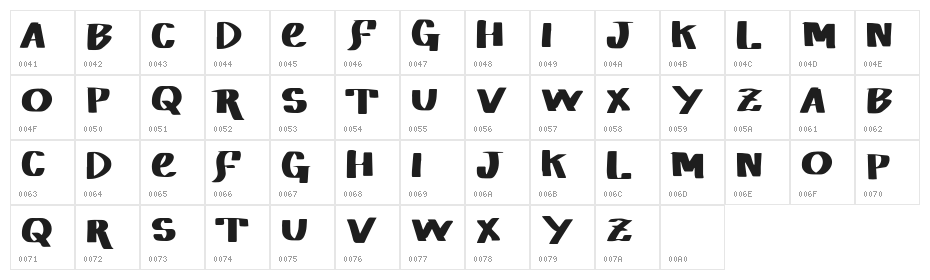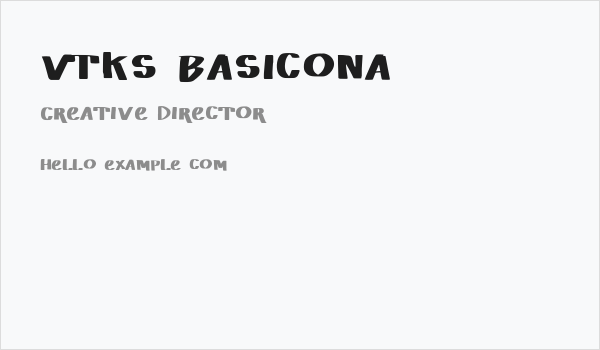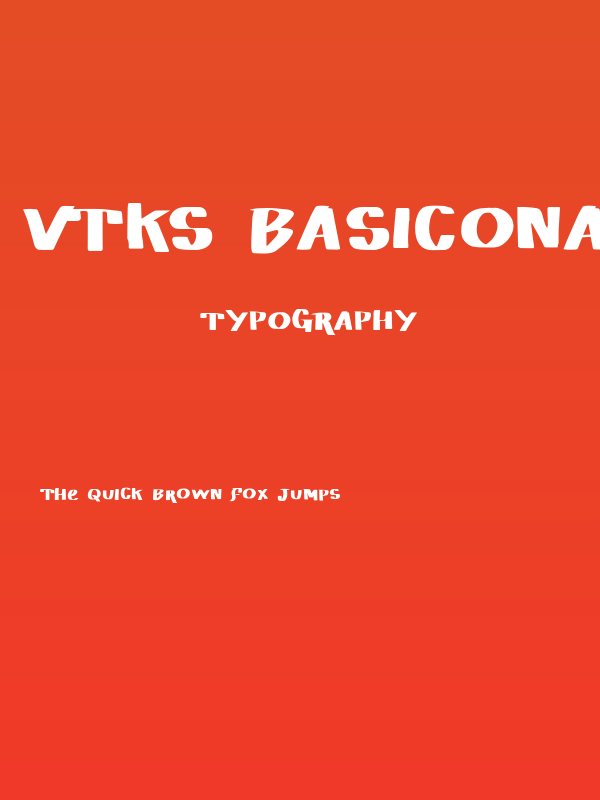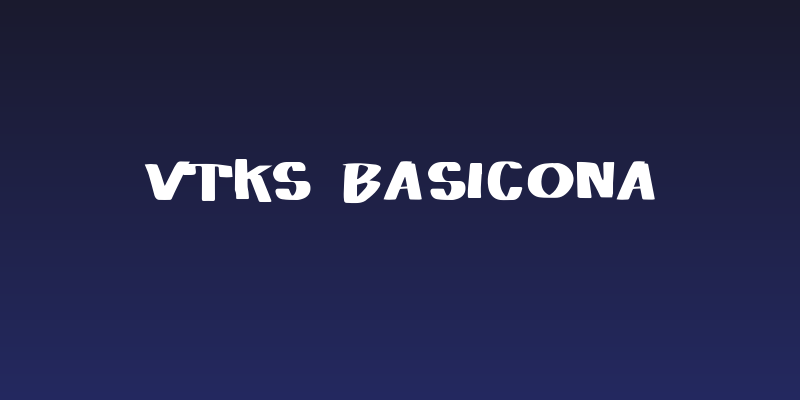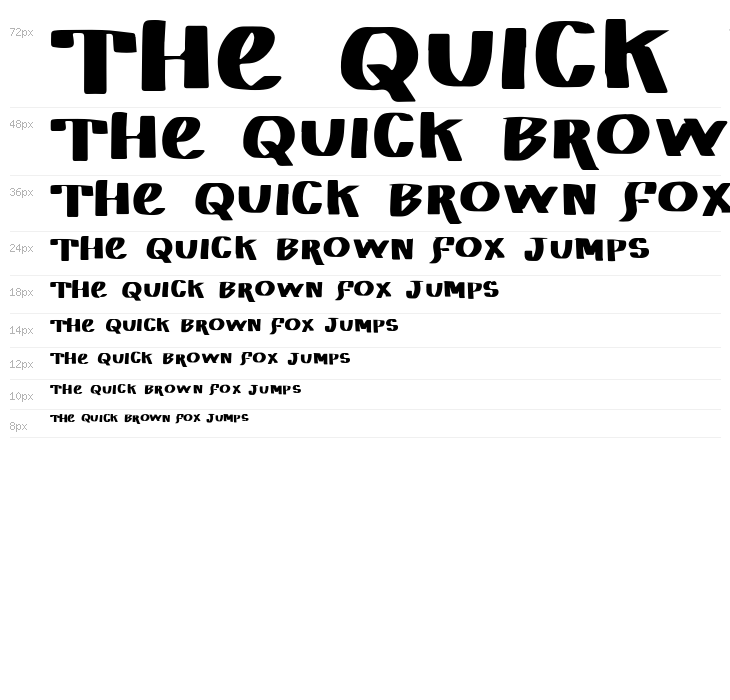
Vtks Basicona Font
Vtks Basicona Description
This font features a bold and dynamic style with a strong presence. The characters are designed with a unique flair, incorporating sharp angles and curves that give it a distinct, edgy appearance. The uppercase letters are particularly striking, with a mix of thick and thin strokes that create a sense of movement and energy. The lowercase letters maintain this dynamic feel, complementing the uppercase with a cohesive design. This font is well-suited for projects that require a bold statement, such as posters, headlines, and branding materials. Its decorative nature makes it stand out, while the consistent design ensures readability.
| Proposed Projects | Ideal for posters, headlines, branding, and any project needing a bold statement. |